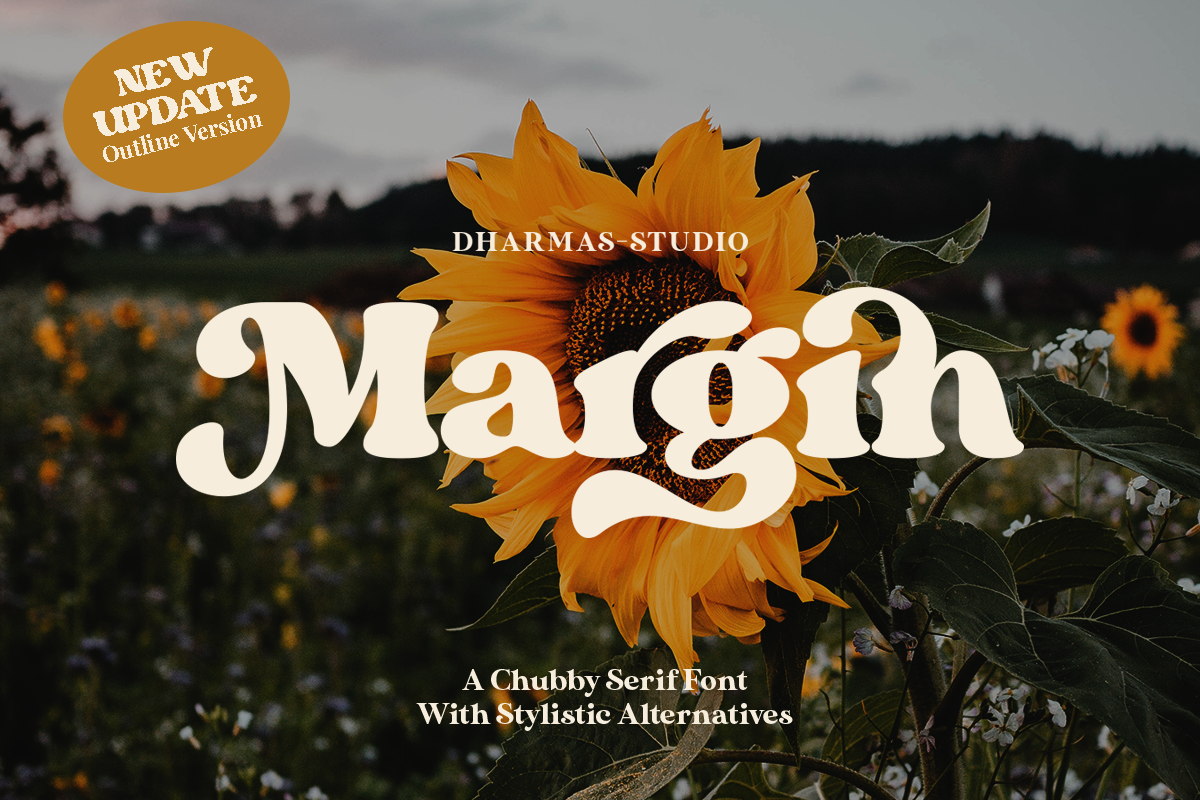
Margin - Retro Serif Font
Margin is a display serif font designed for logos, branding, packaging, posters, social media graphics, editorial layouts, and merchandise. Its bold letterforms, swash, stylistic alternates, ligatures, italic version, and outline style provide flexibility for creating distinctive typography across brand identities, product packaging, restaurant and café branding, invitations, book covers, labels, and digital content.
Margin Font Features:
4 Styles: Regular, Italic, Outline, and Italic Outline
66+ Swash, Alternate and Ligatures
Letters, numbers, symbols, punctuation, special alternates
This is such a fun typeface to use. One of my favorites right now. Well done!
Beautiful typeface, but the stylistic alternatives are not accessible via Opentype in Adobe Illustrator. You can get to them via glyphs, but still not as convenient as it should be.